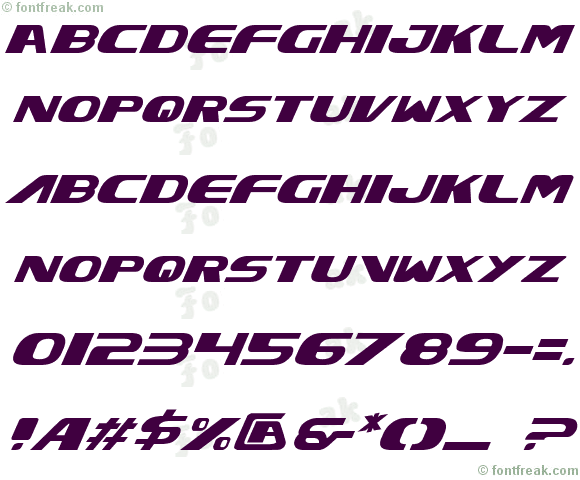
About Xcelsion
The Xcelsion font by Iconian Fonts is a striking display typeface that captures attention with its unique character. Released in 2002 as freeware, this font stands out in the decorative category, making it an excellent choice for projects that require a bold statement. The Xcelsion font features a distinct, angular design with sharp edges, giving it a futuristic and dynamic appearance. The stroke weight varies throughout the typeface, providing a pleasing contrast that enhances legibility while maintaining a strong visual impact. The spacing is well-balanced, allowing for clear readability even in larger settings.
This font is particularly well-suited for a variety of creative uses. It shines on movie posters, where its bold presence can convey action and excitement. Additionally, Xcelsion is an excellent choice for branding small businesses, especially in tech or creative industries, where a modern aesthetic is essential. It can also elevate restaurant menus, providing a unique flair that attracts attention and enhances the dining experience. Content creators will find this font useful for social media graphics, as its eye-catching style is perfect for standing out in crowded feeds.
Targeting graphic designers, small business owners, and content creators, Xcelsion meets the needs of professionals looking for a distinctive typeface that stands out without compromising on clarity. With a Xcelsion font free download available, anyone can easily incorporate this striking typeface into their design toolkit. The bold and angular design of Xcelsion not only makes it visually appealing but also versatile in application. Whether for print or digital projects, this font adds a layer of sophistication and creativity, making it a valuable asset for any designer's repertoire.